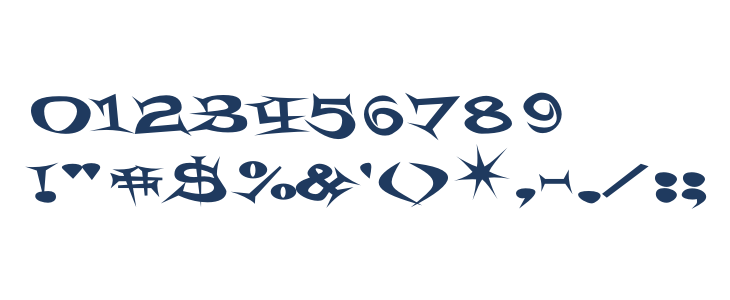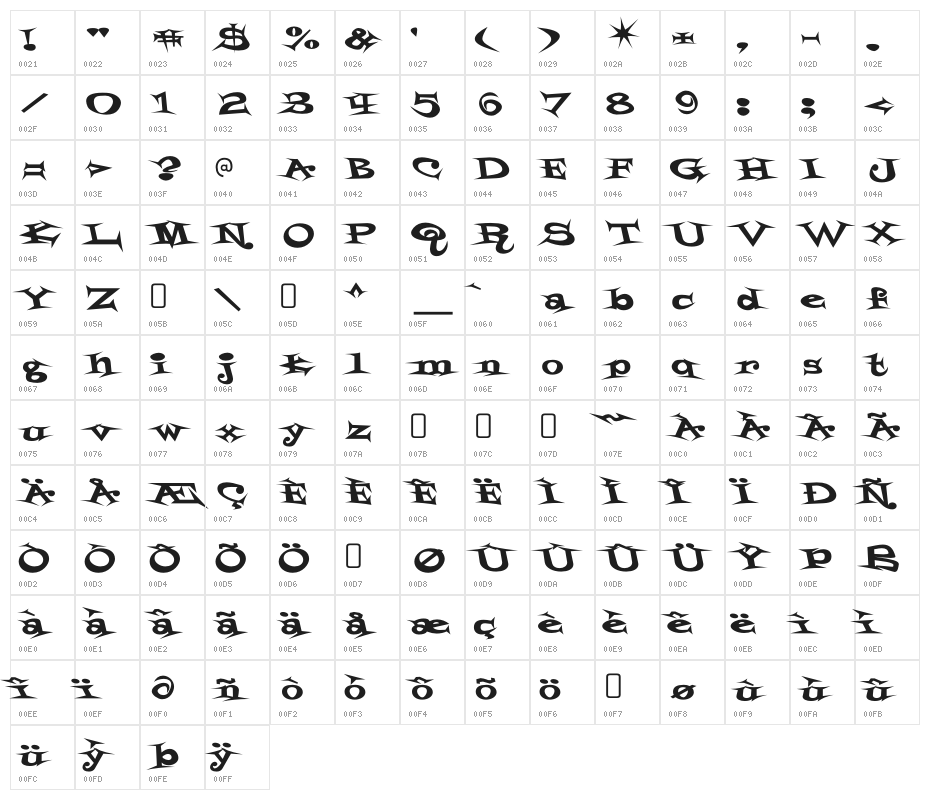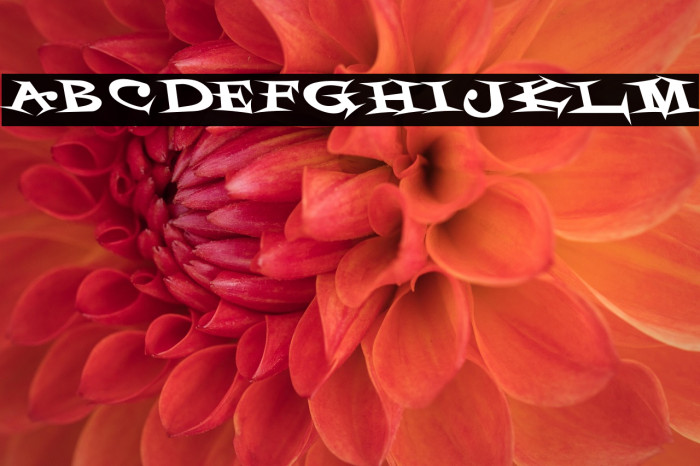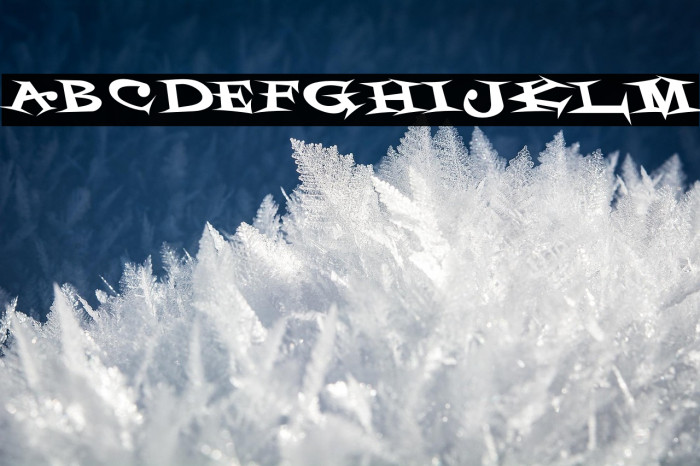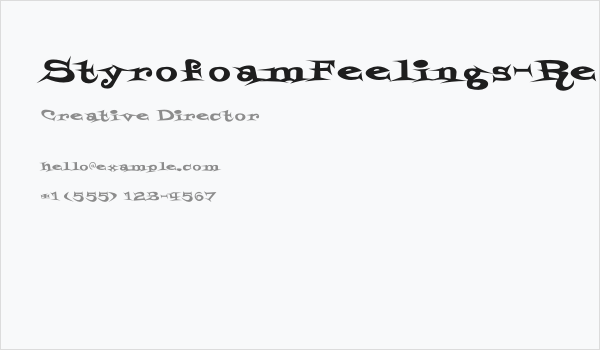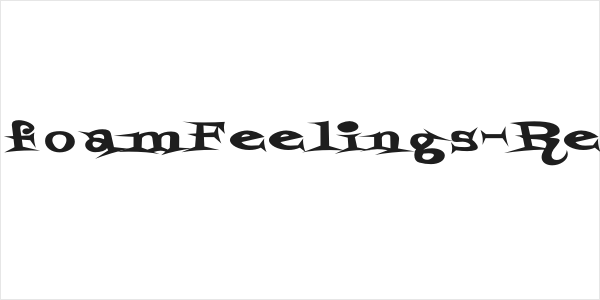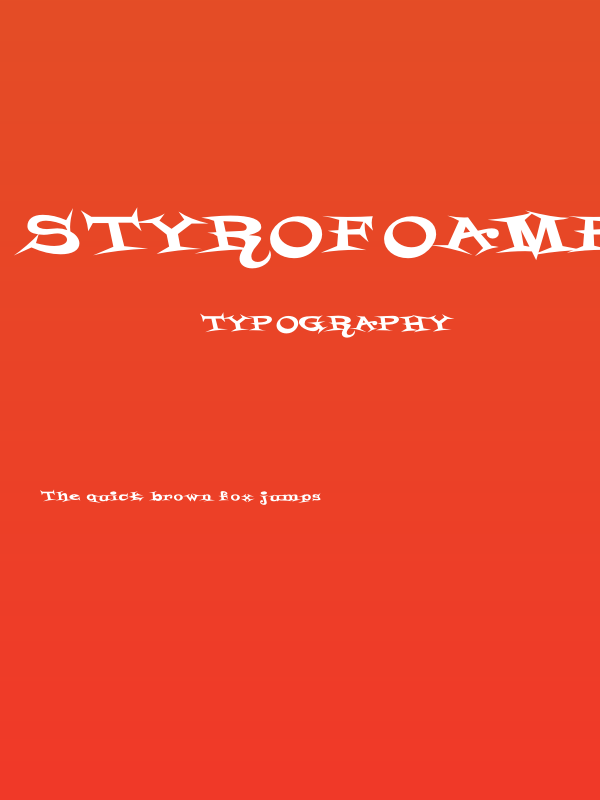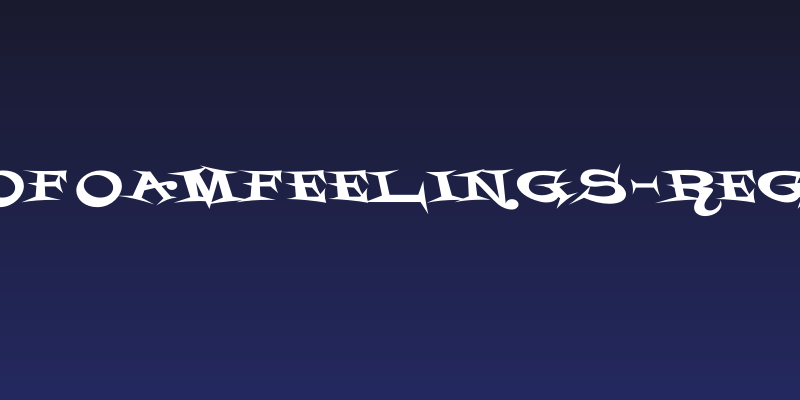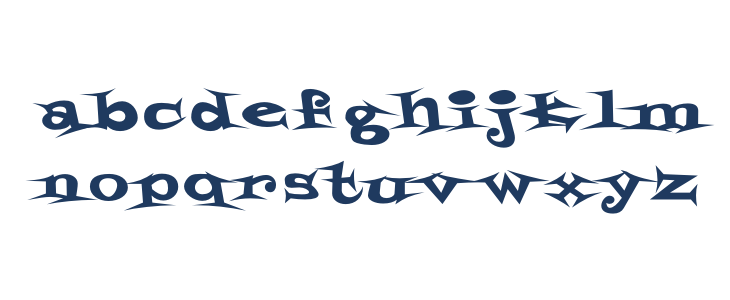
StyrofoamFeelings-Regular Font
StyrofoamFeelings-Regular Description
This font features a bold and dynamic style with sharp, angular edges and a slightly distorted appearance. The letters have a unique, edgy design that gives them a sense of movement and energy. The uppercase characters are particularly striking, with exaggerated serifs and pointed extensions that create a dramatic visual impact. The lowercase letters maintain a consistent style, offering a cohesive look across the typeface. Numbers and special characters are designed to match the overall aesthetic, ensuring versatility in various design applications. The font's distinctive style makes it suitable for projects that require a bold, eye-catching typeface.
Overall StyleModern, Decorative
Proposed ProjectsIdeal for album covers, posters, branding for edgy or alternative brands, and any project needing a striking visual impact.